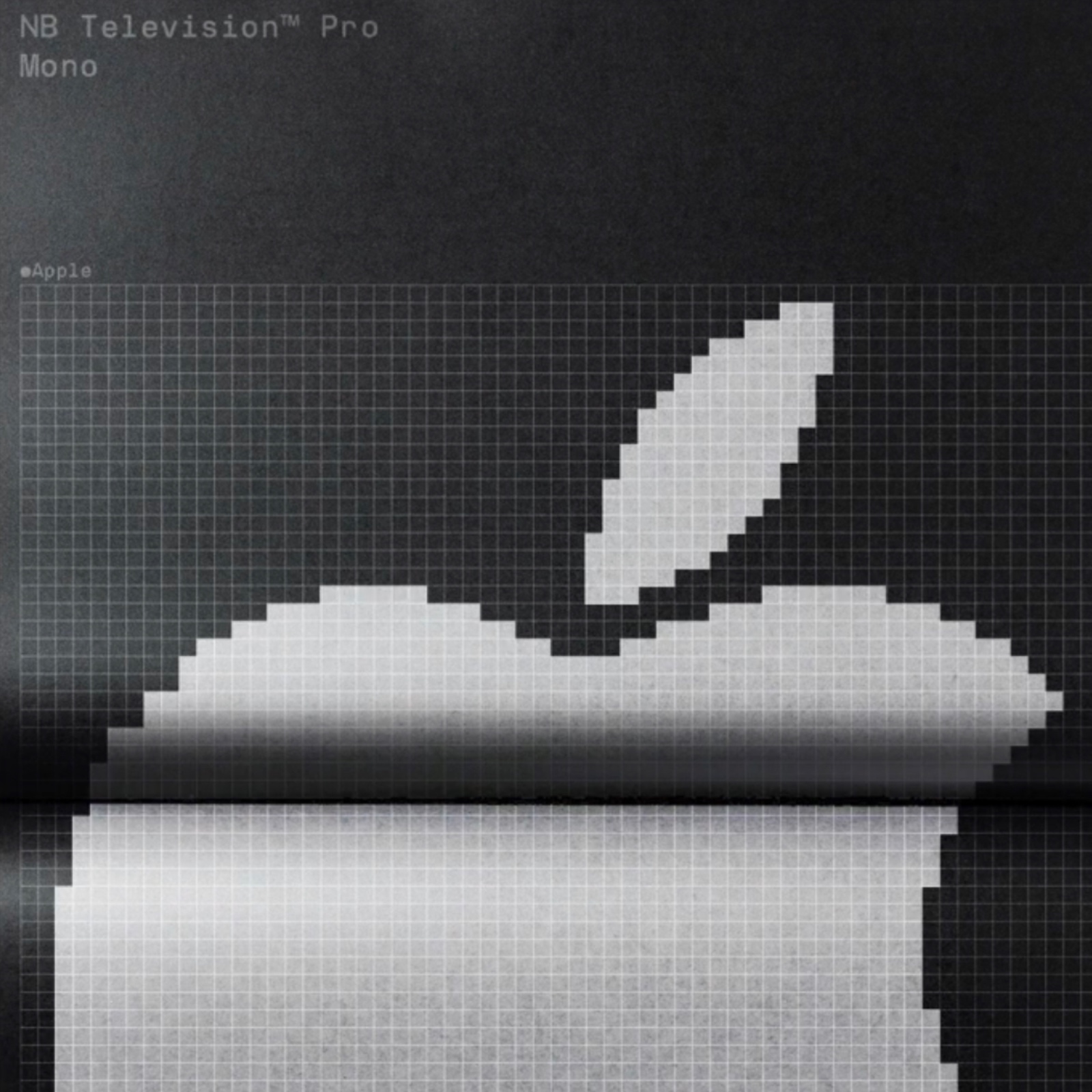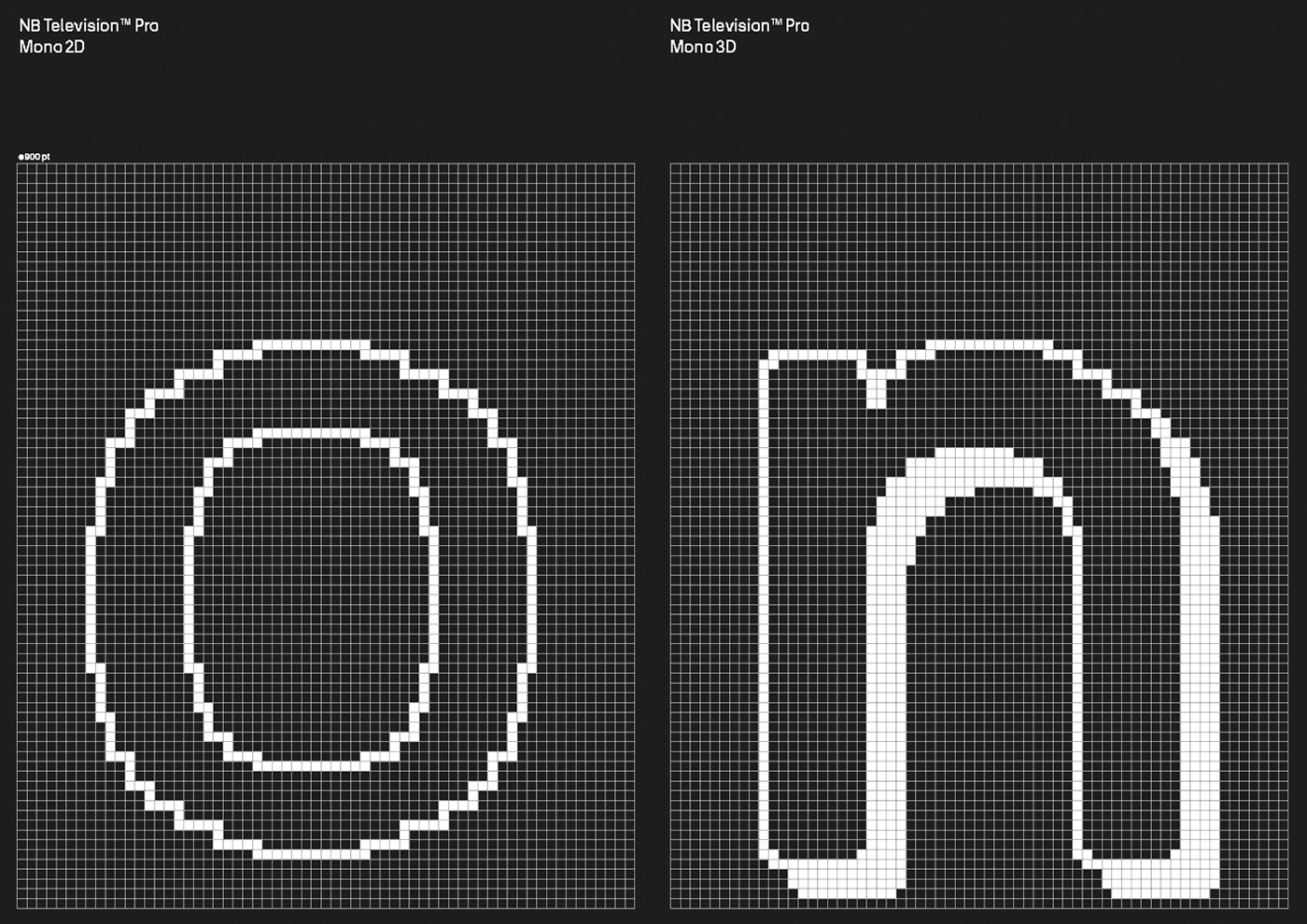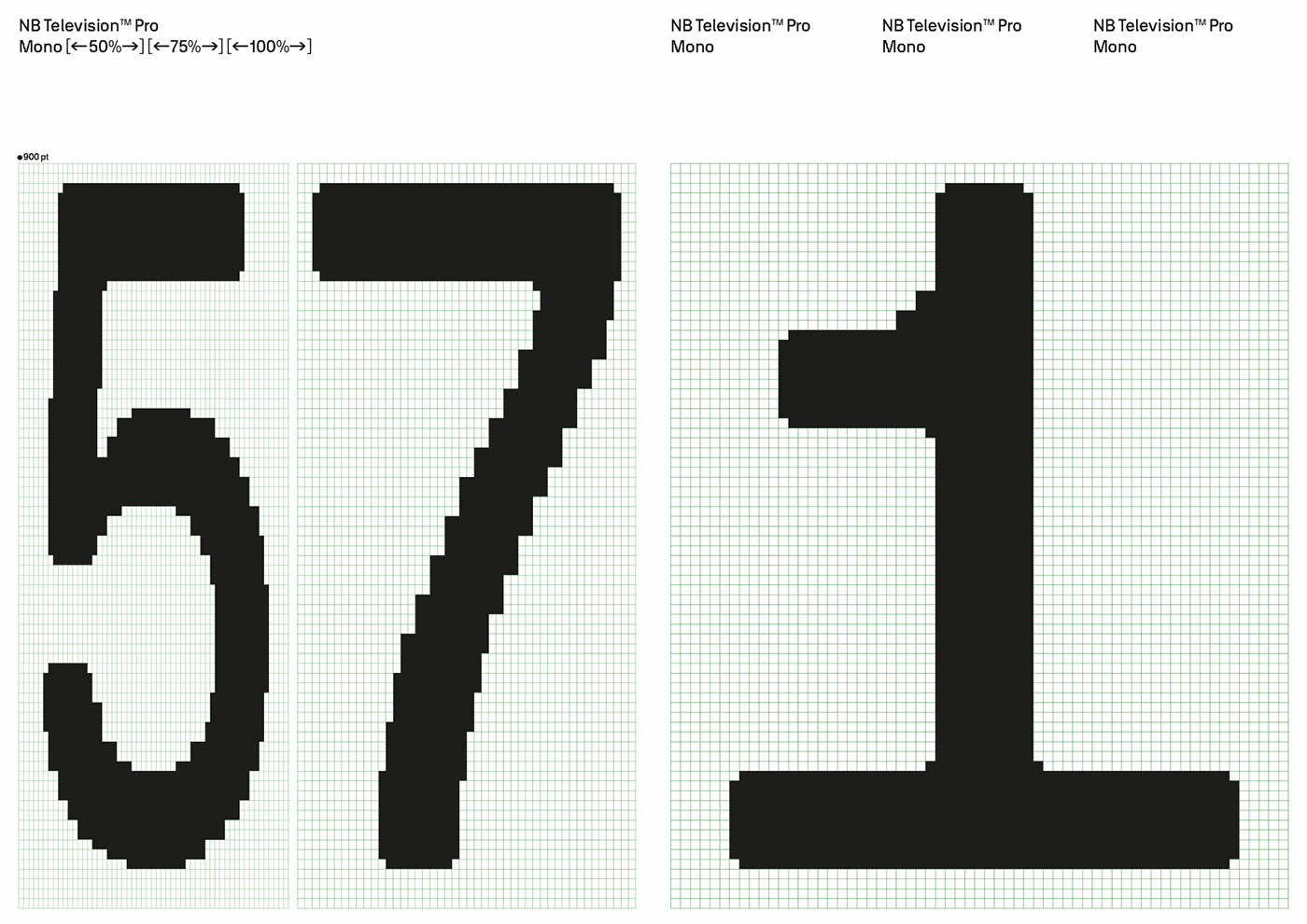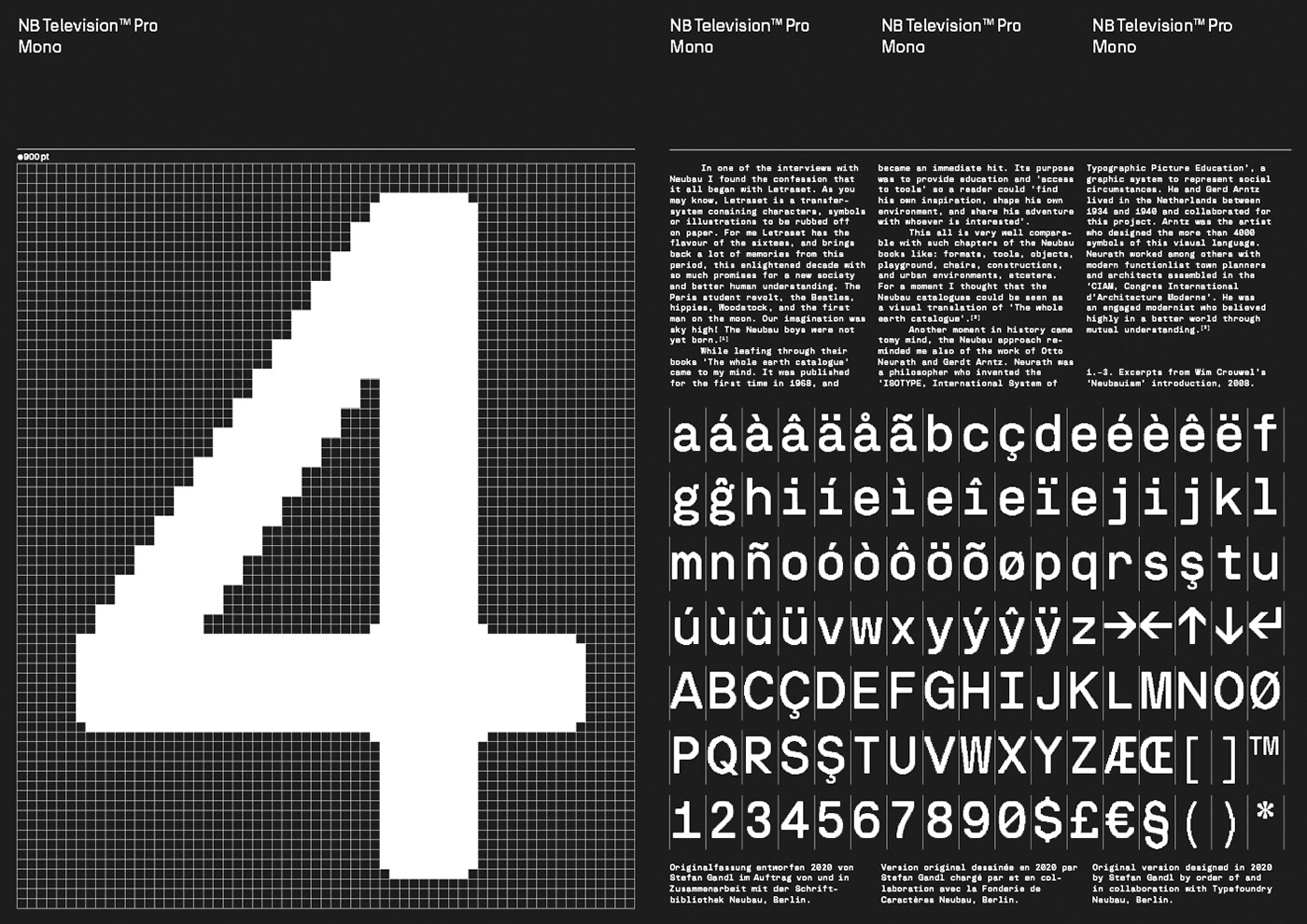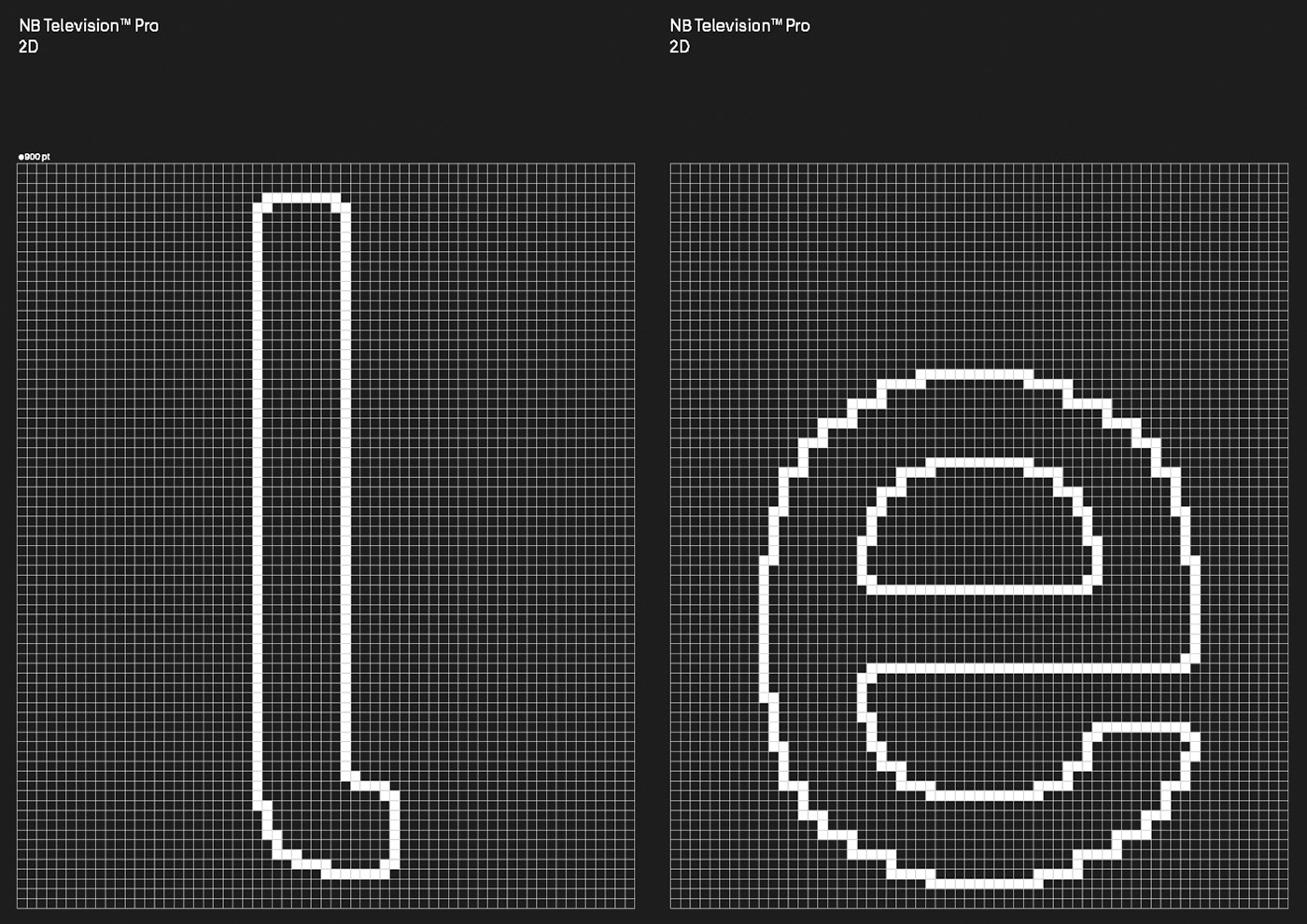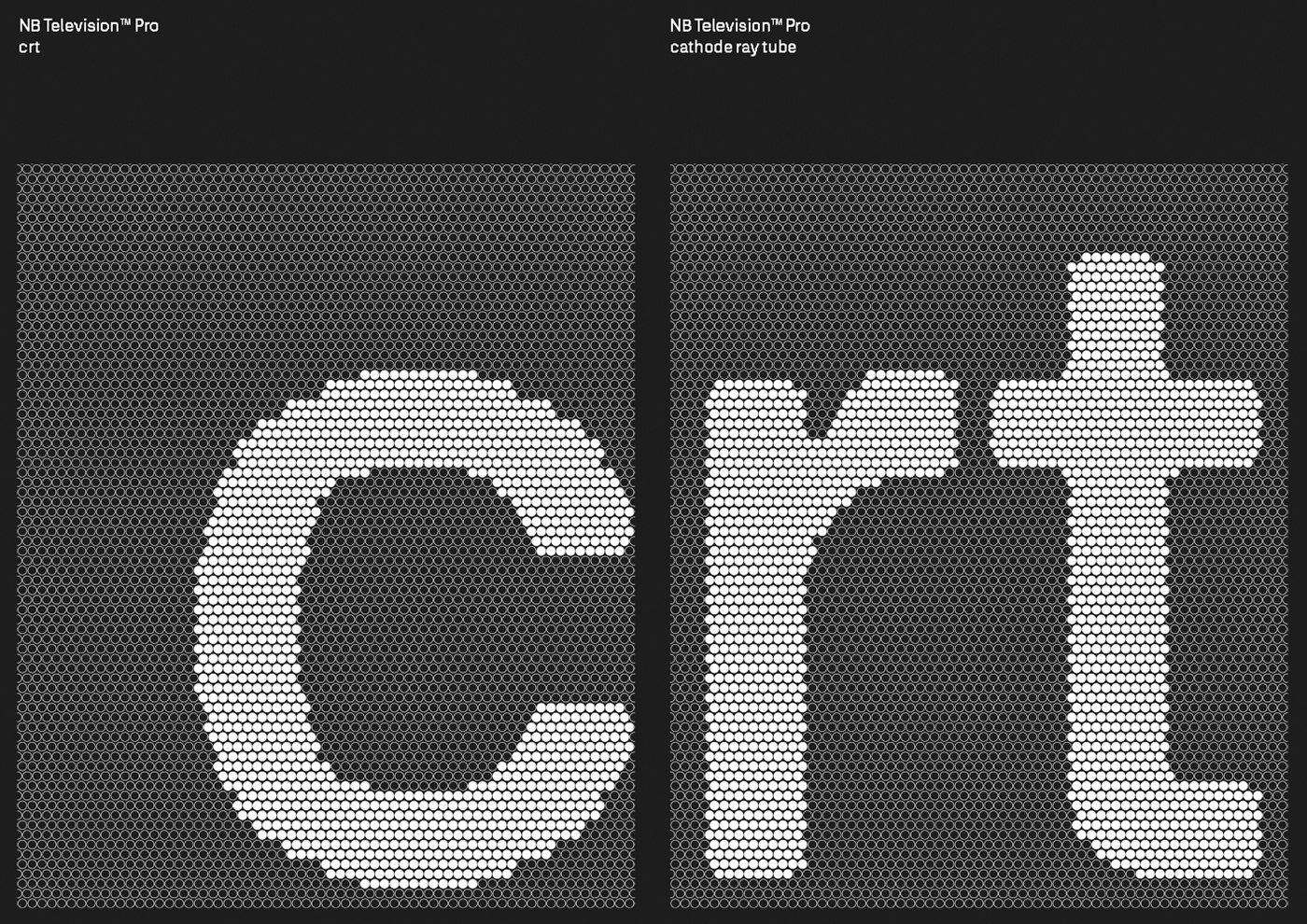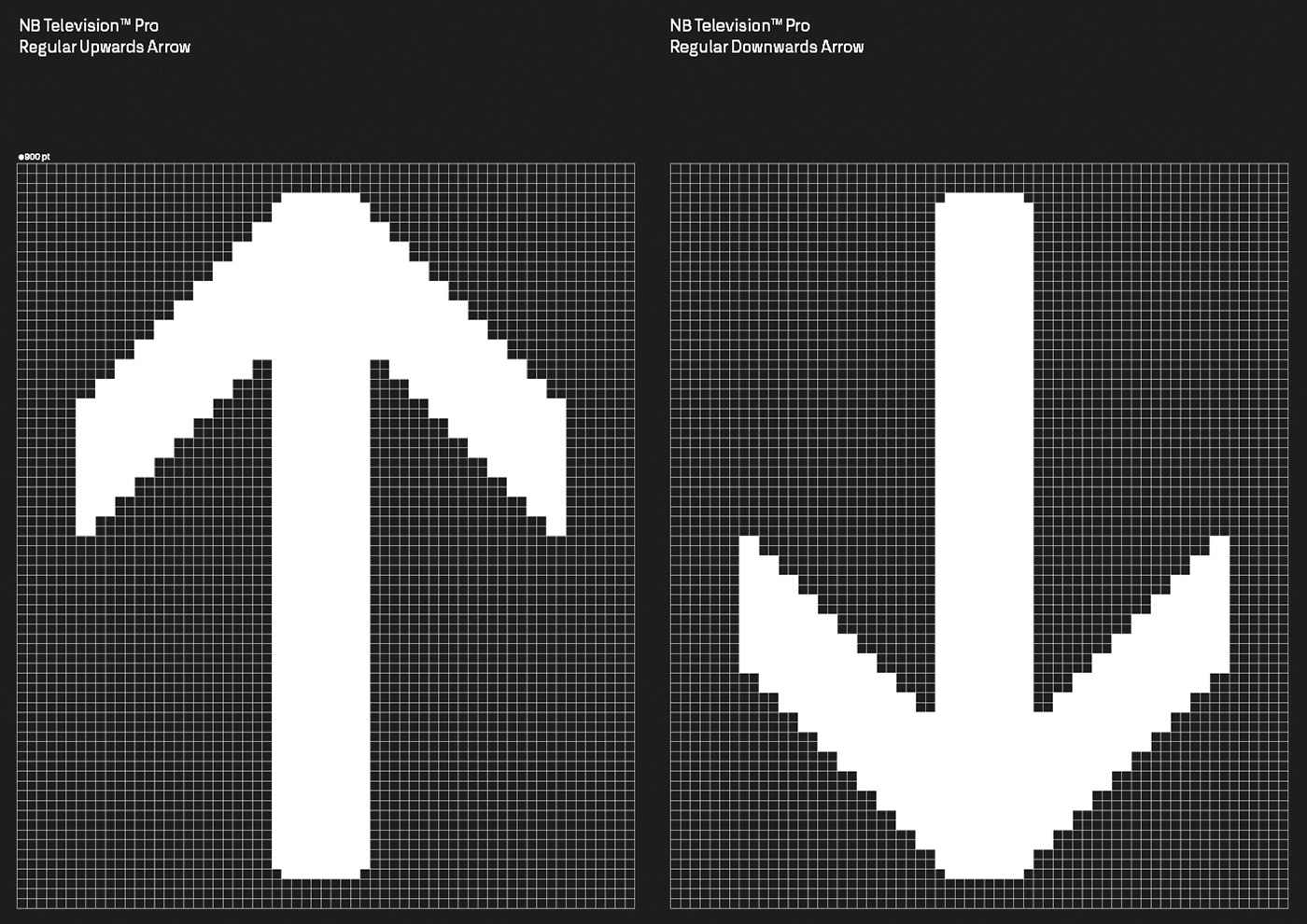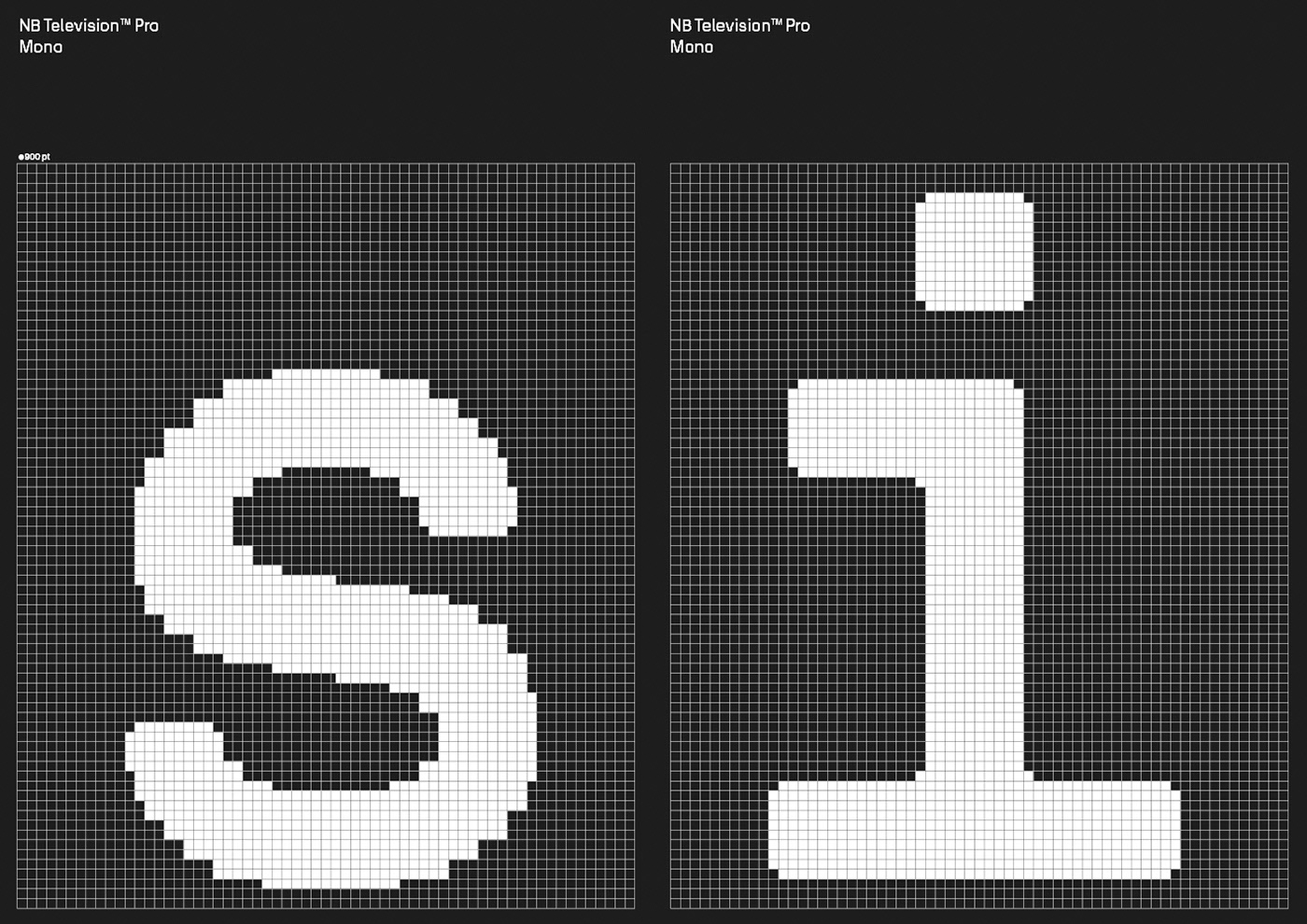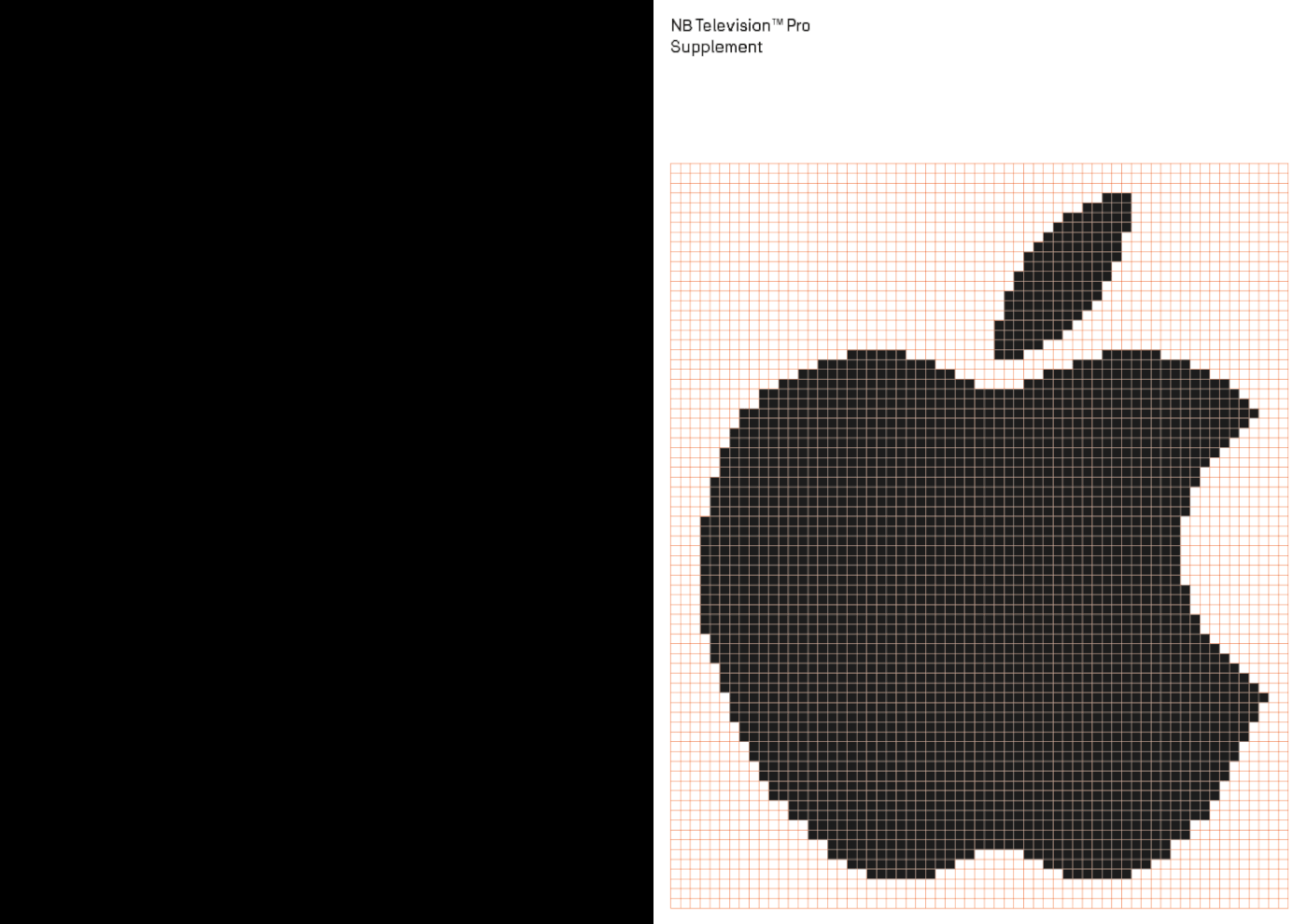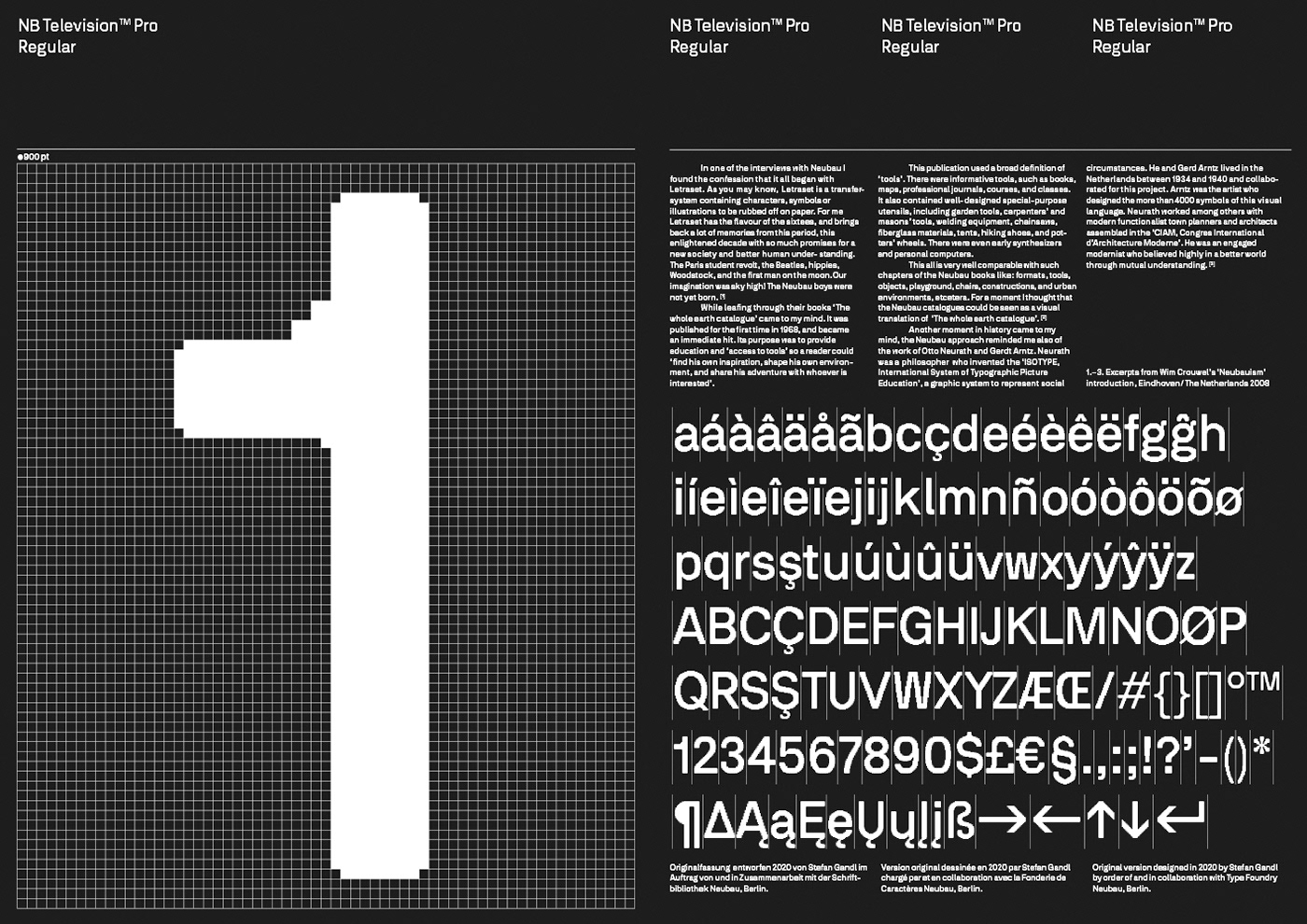
NB Television™ Pro pays tribute to popular typefaces of the ‘cathode ray tube’ era by translating the analogue ‘crt’ grid based softedged typesets to the digital age. With a focus on detail and reference to the ‘crt’ grid, each glyph was designed with pixel perfect precision. This results in a warm characteristic when used in small sizes versus a crisp, pixel dominated modern neo-grotesque when applied in large sizes that translates beautifully both in print and on screen.
NB Television™ Pro Edition comprises six typesets: Regular, 2D, 3D, Mono, Mono 2D and Mono 3D.
NB Television™ Pro Type Specimen
NB Television™ Pro Supplement
NB Television™ Pro Teaser
NB Television™ Pro Edition (MMXXII)
• Complete set includes six typesets: Regular, 2D, 3D, Mono, Mono 2D, Mono 3D
• Designer: Stefan Gandl, Neubau